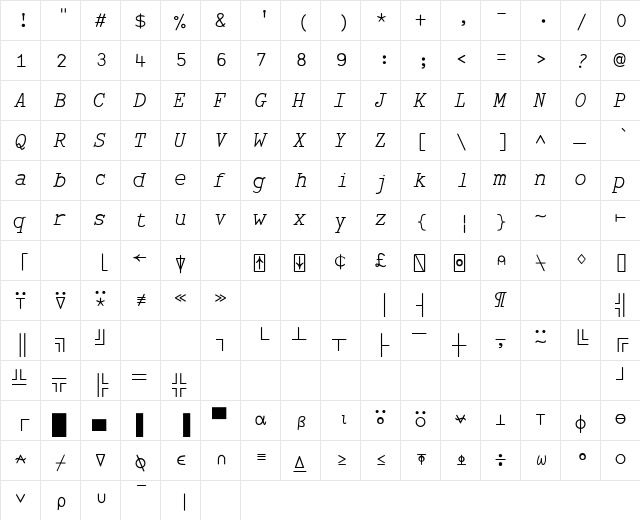
VectorAPL Normal
Design Context for VectorAPL Typeface
VectorAPL is a composed and adaptable typeface that performs quietly and consistently across a wide range of design contexts.